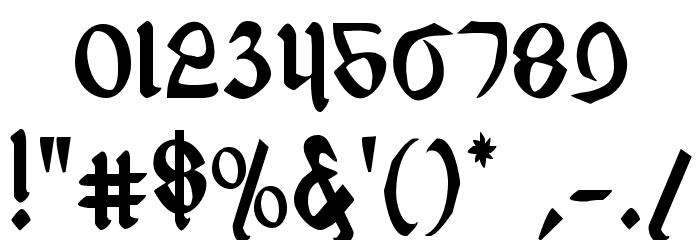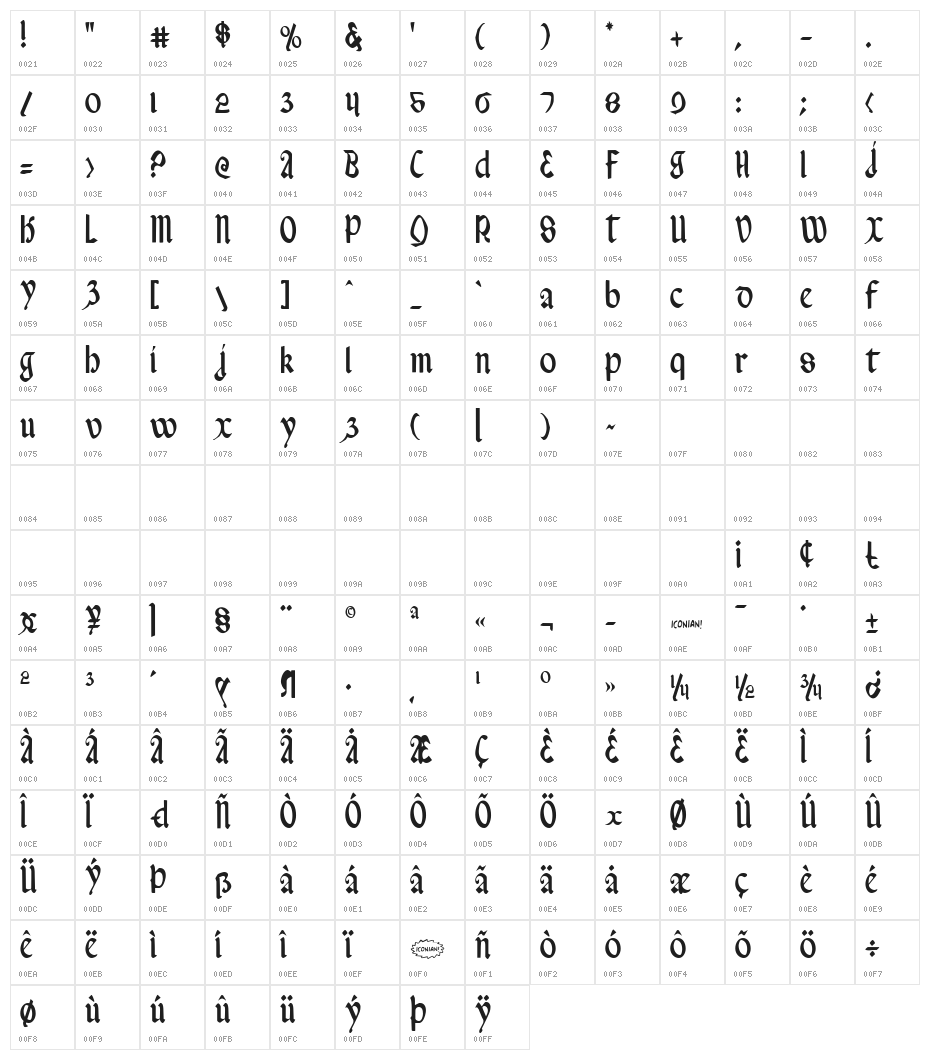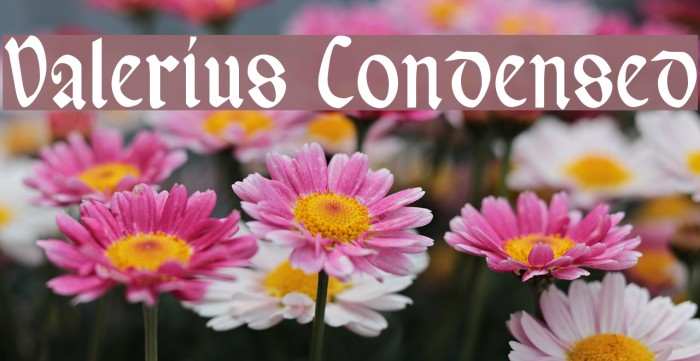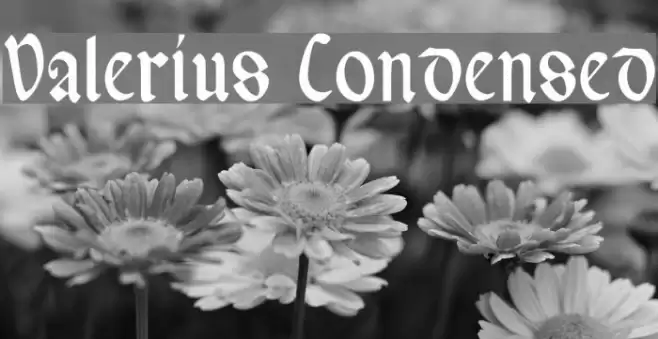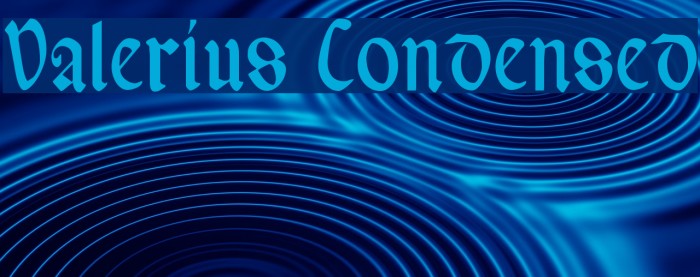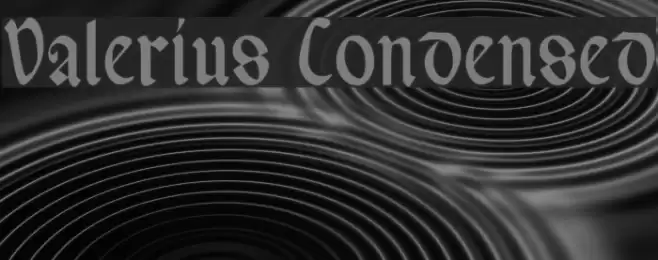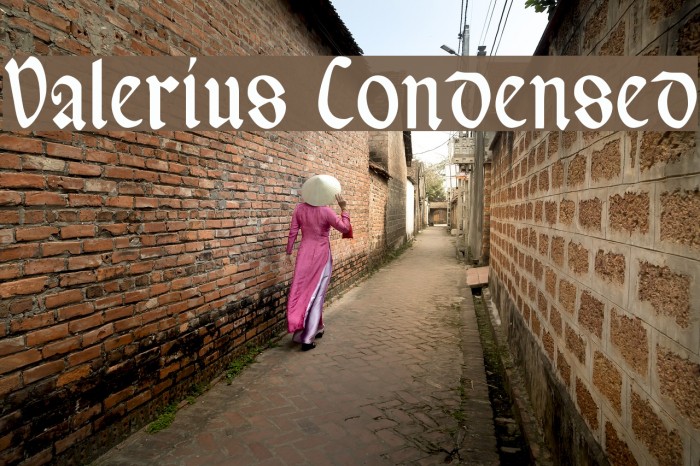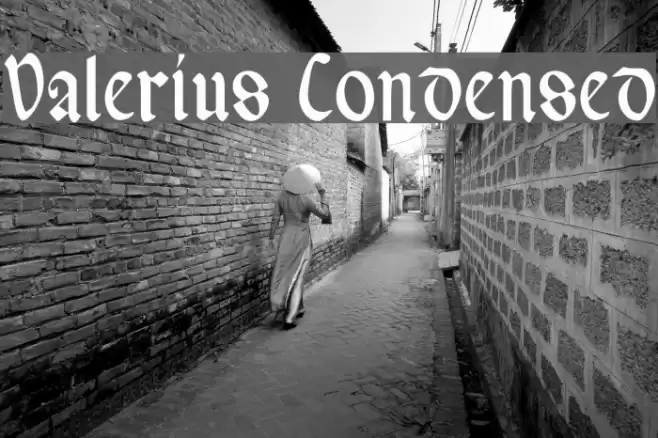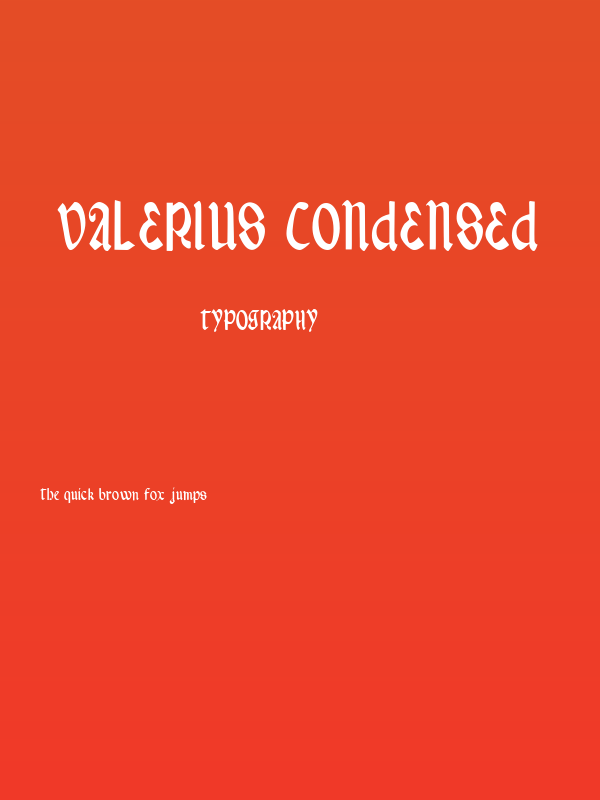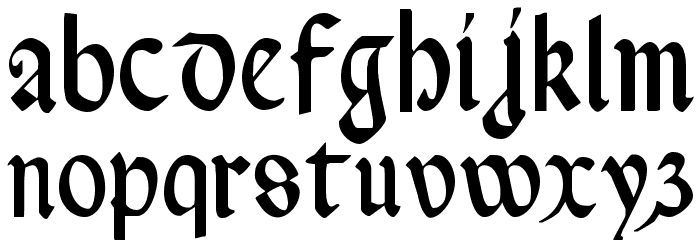
Valerius Condensed Font
Valerius Condensed Description
This font exhibits a classic blackletter style, characterized by its sharp, angular lines and intricate detailing. The uppercase letters are bold and commanding, with a distinct medieval flair, while the lowercase letters maintain a consistent flow, enhancing readability. The numerals are uniquely styled, reflecting the historical essence of the typeface. Special characters are crafted with precision, adding to the font's overall decorative appeal. The condensed nature of the font allows for efficient use of space, making it suitable for various design applications.
| Use Case | Headlines, Logos, Decorative text |
| Proposed Projects | Ideal for projects requiring a historical or gothic touch, such as book covers, posters, or themed event invitations. |